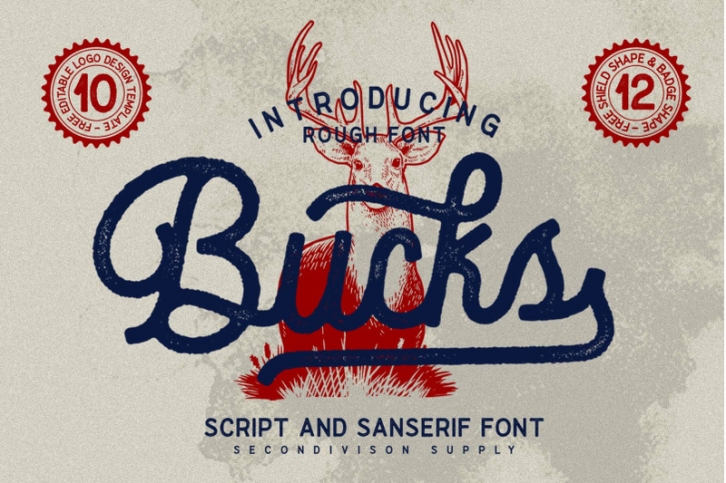
Introducing Bucks script and buck sanserif, they are rough style font. This font is inspired by natural vibe and vintage look. In Bucks package you will get an editable logo and shield shape, so you can easily create the desired logo. font ini sangat cocok digunakan untuk logo, undangan, poster, print ad. Bucks script is equipped with opentype feature so you can be more creative to create works, while sanserif bucks are fonts with uppercase style.
Buck Script
• Character A - Z
• Numeric & Punctuation
• Alternates Character
Buck Sanserif
• Character A - Z
• Numeric & Punctuation